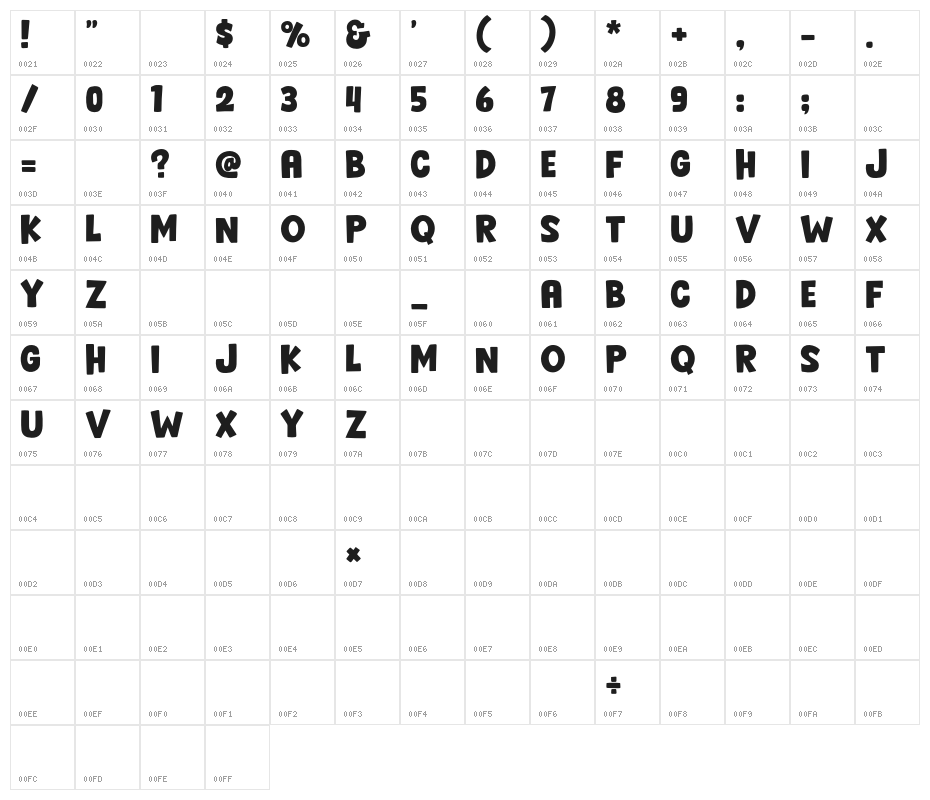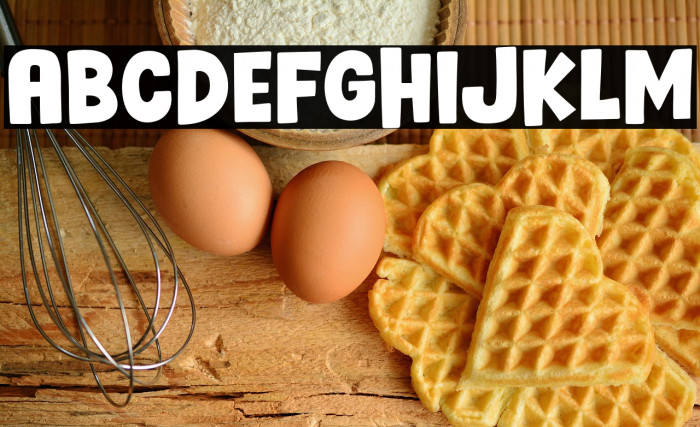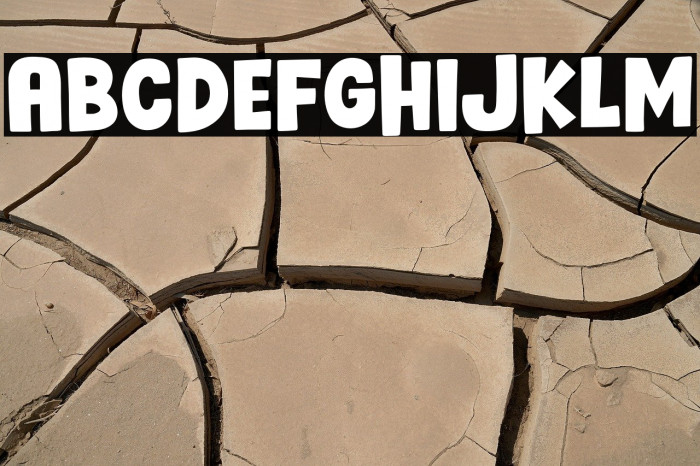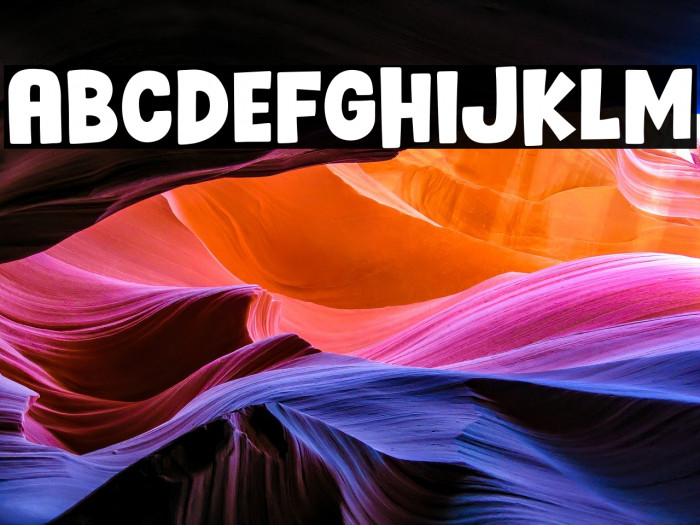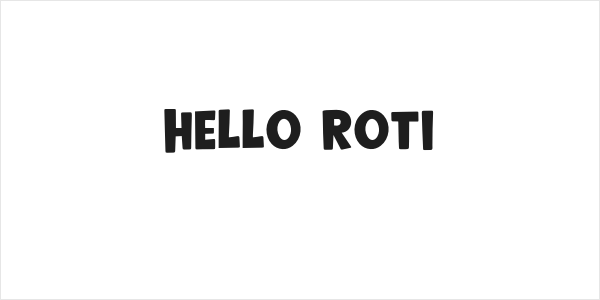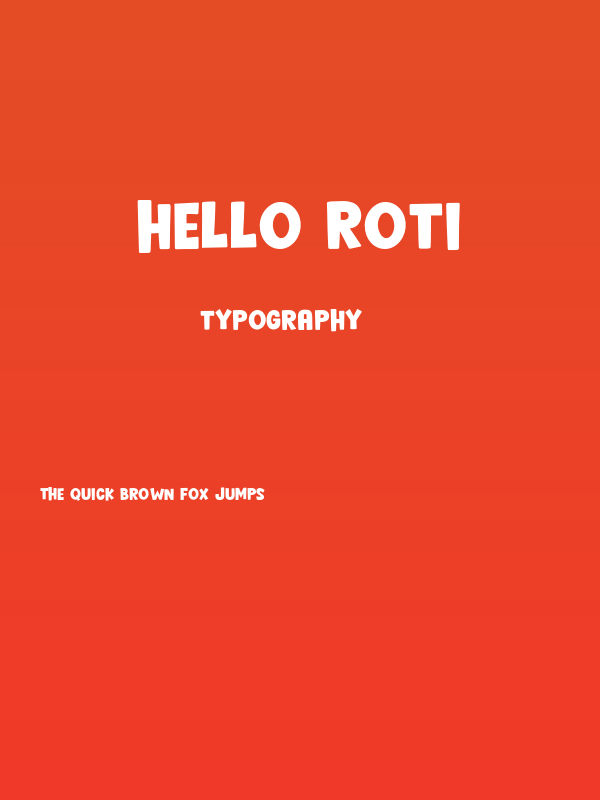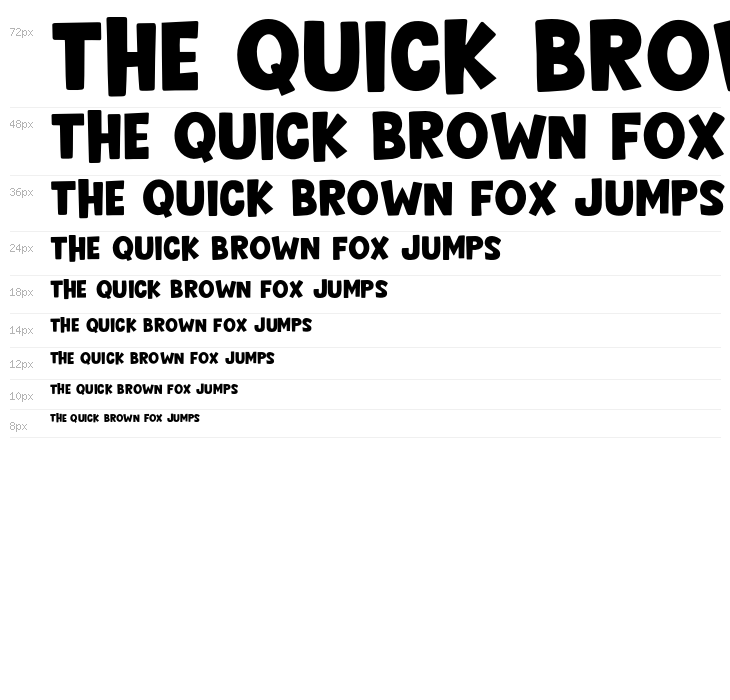
Hello Roti Font
Hello Roti Description
This font features bold, rounded characters with a playful and friendly appearance. The letters are thick and uniform, giving them a strong presence on the page. The rounded edges and consistent stroke width contribute to a casual and approachable style. The numerals and special characters maintain the same boldness and rounded design, ensuring consistency across all glyphs. This font is ideal for projects that require a fun and engaging look, such as children's books, playful branding, or eye-catching headlines.
| Overall Style | Playful |
| Use Case | Headlines, Logos, Branding |
| Proposed Projects | Ideal for children's books, playful branding, and eye-catching headlines. |